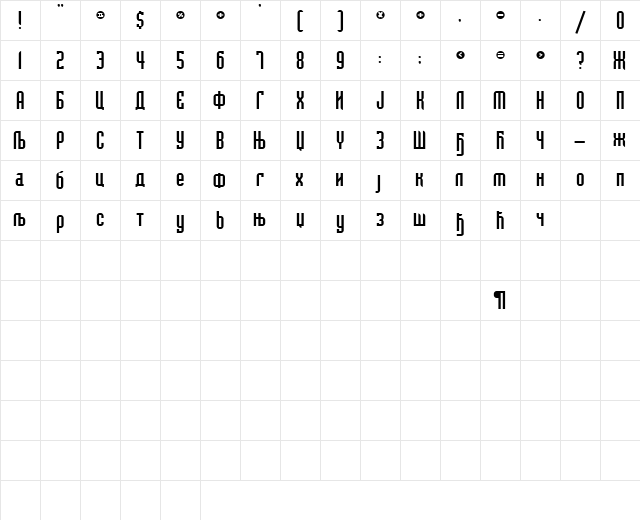
C_Bedrock Regular
Design Context for C_Bedrock
C_Bedrock is a composed and adaptable typeface that performs quietly and consistently across a wide range of design contexts.